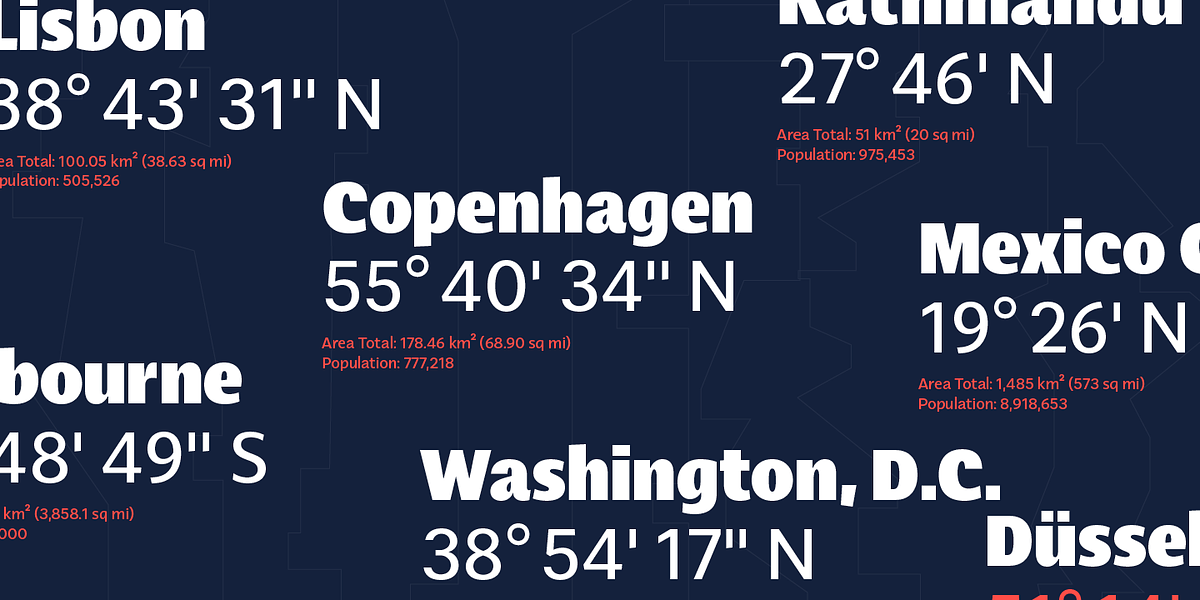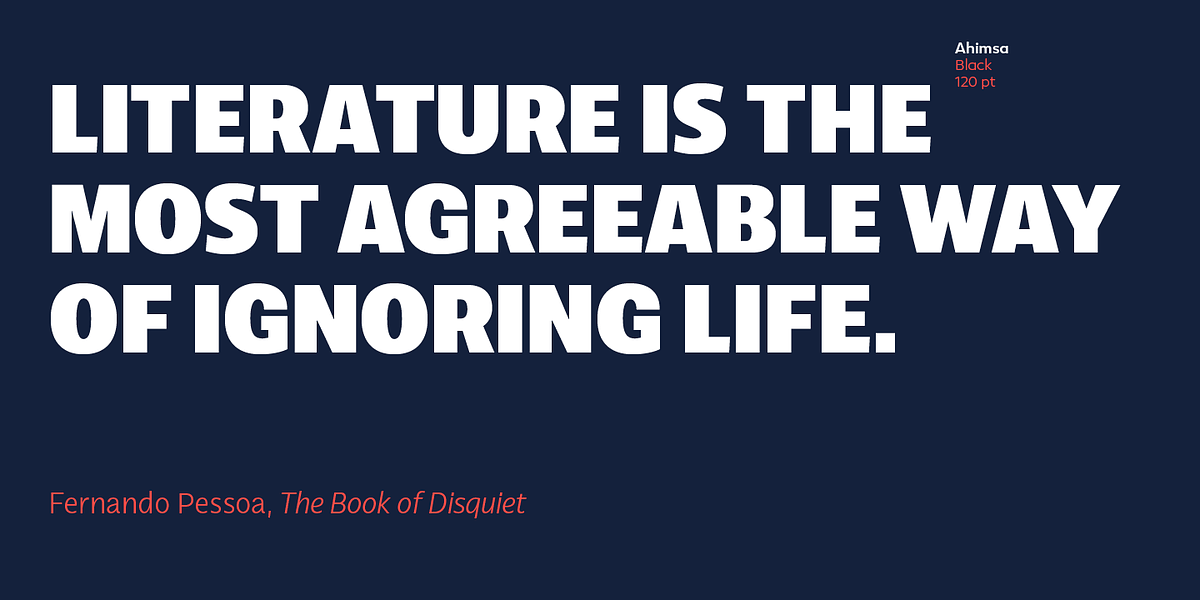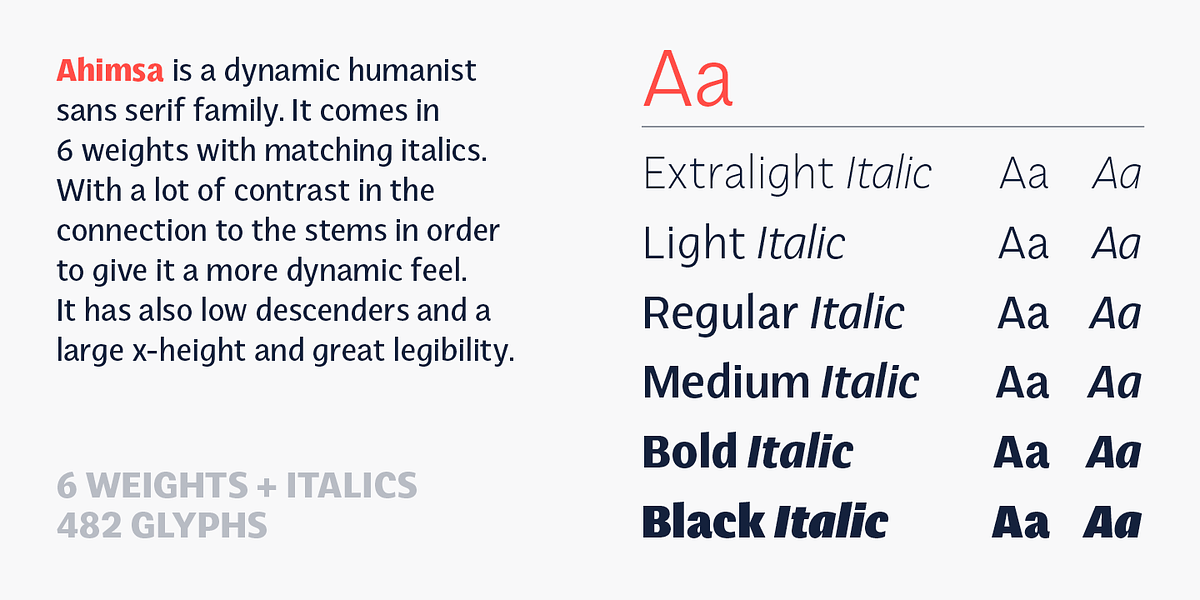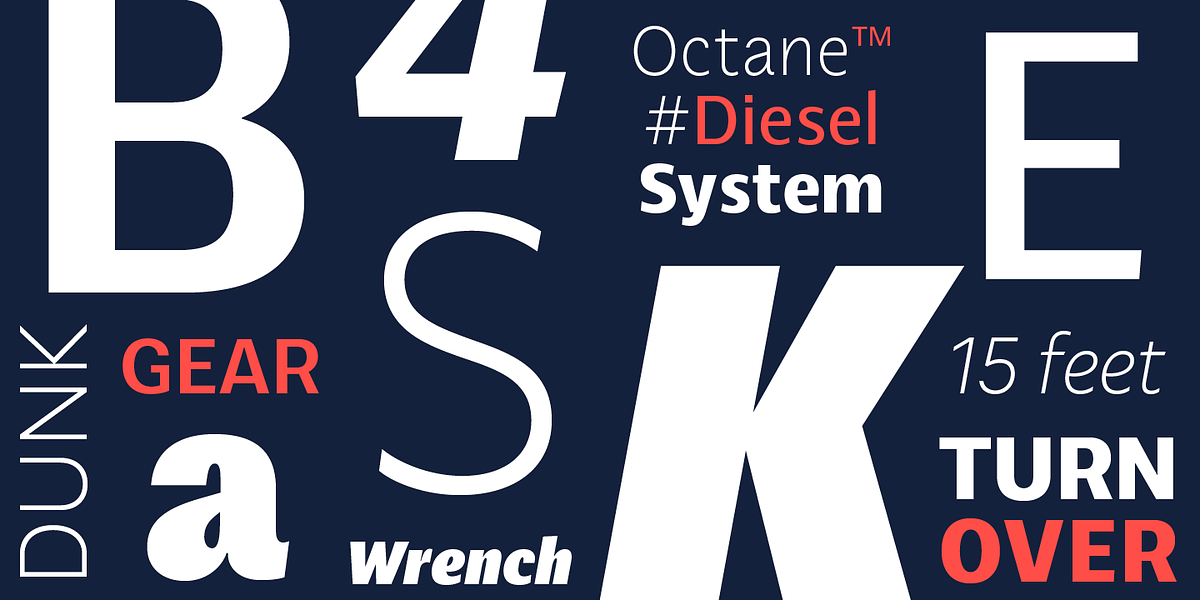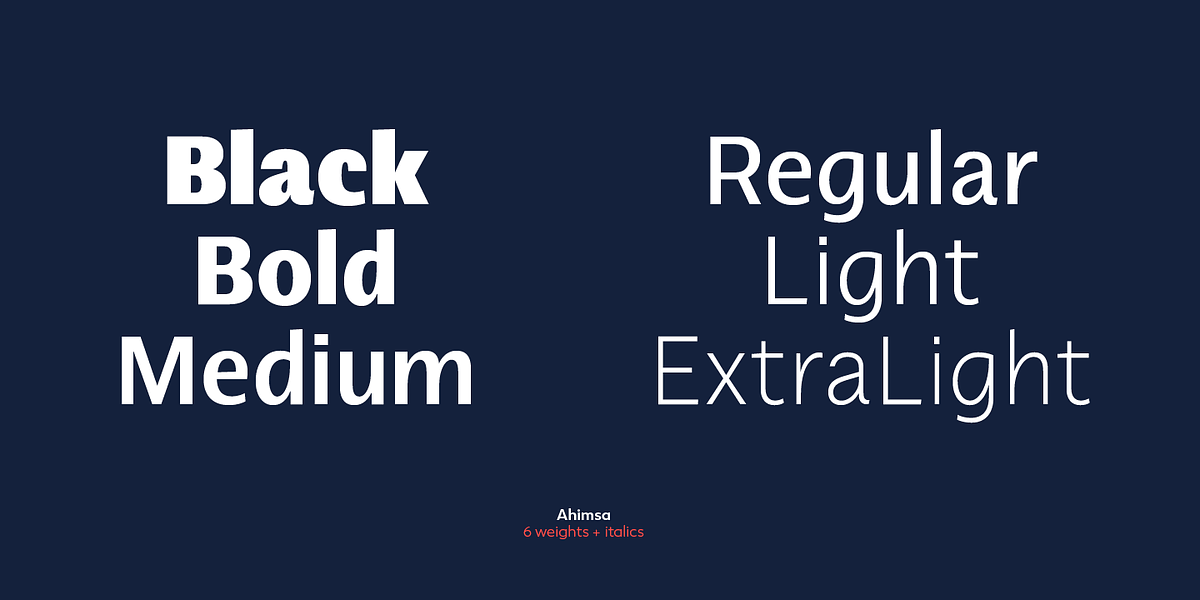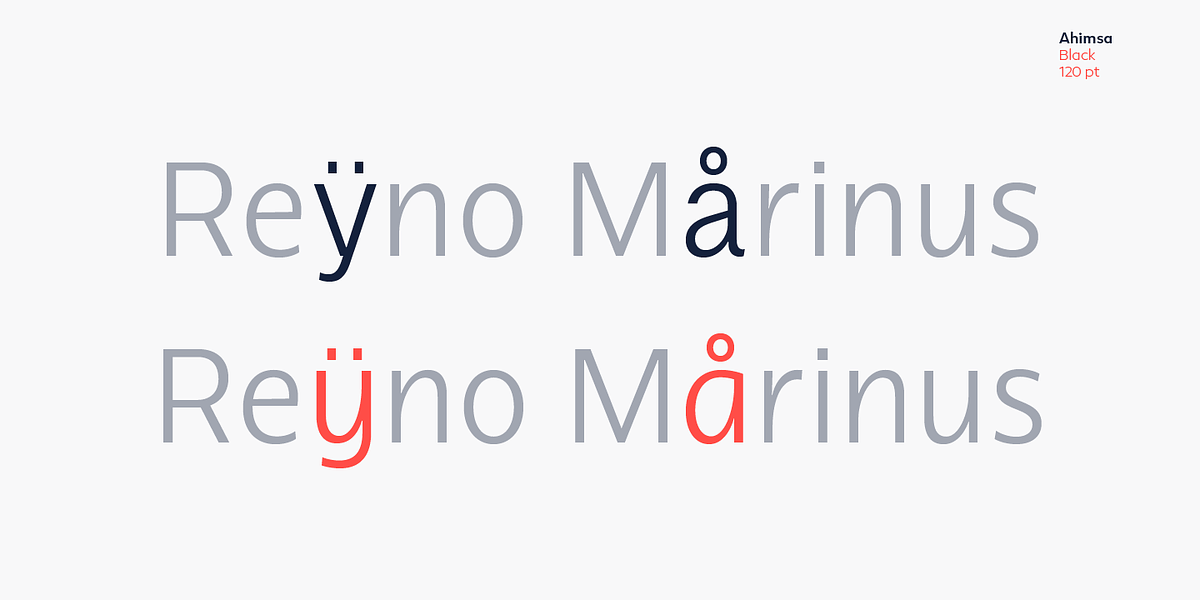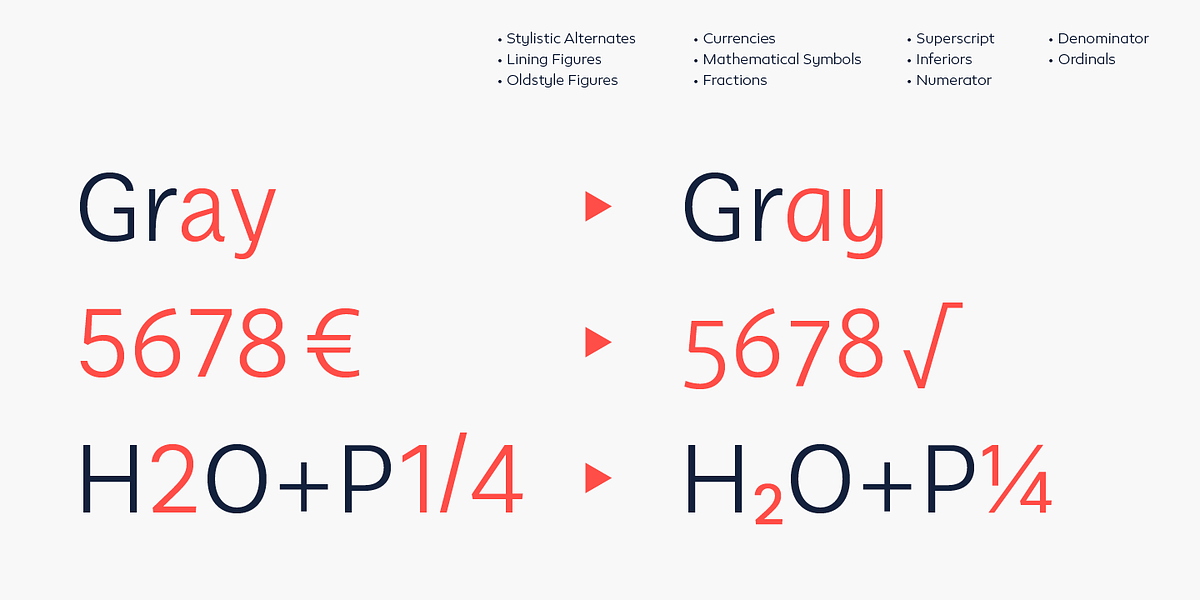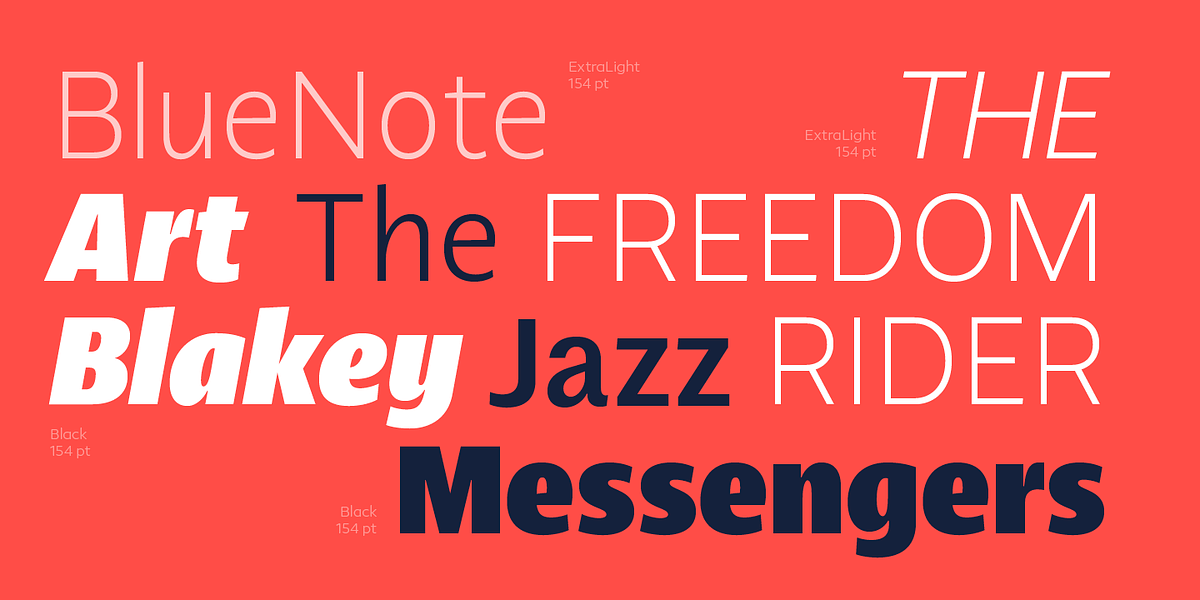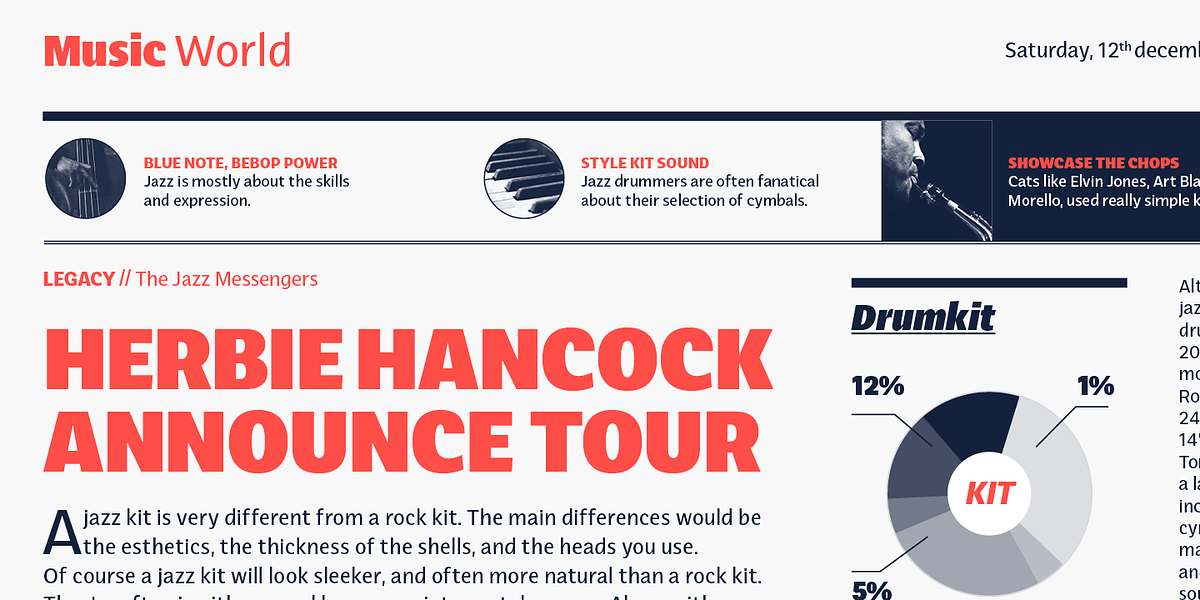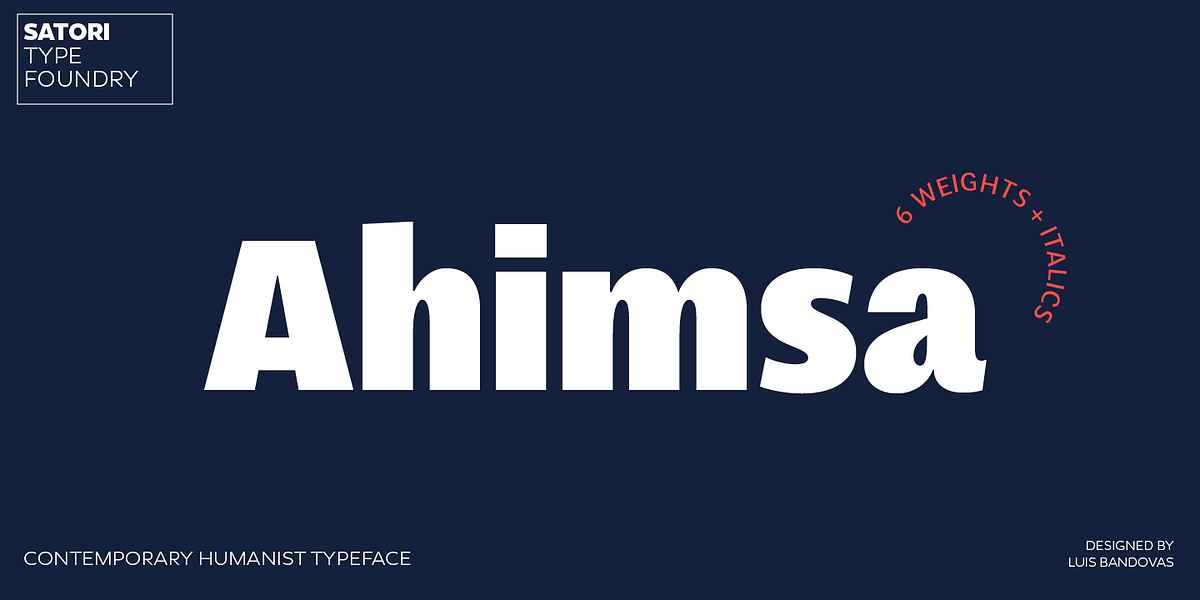
Ahimsa
Ahimsa is a humanist sans serif font family designed for both headlines and body text. It features high contrast between the strokes and stems, creating a dynamic feel. The font also boasts low descenders and a large x-height, contributing to its excellent legibility.